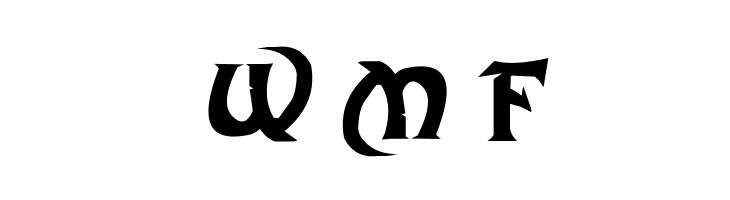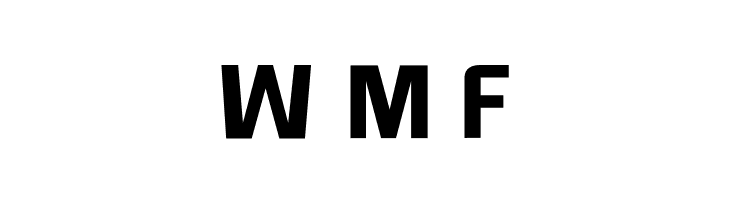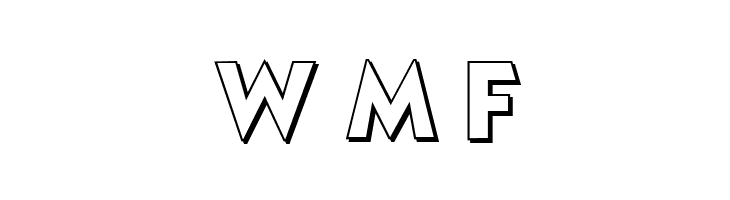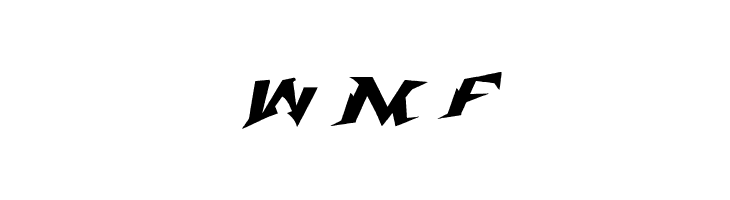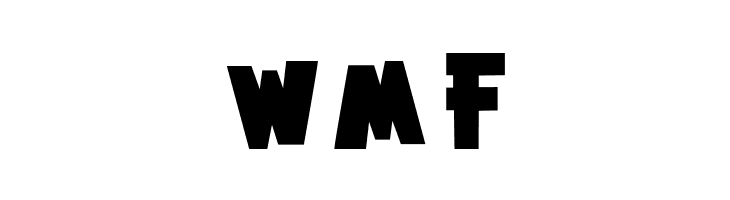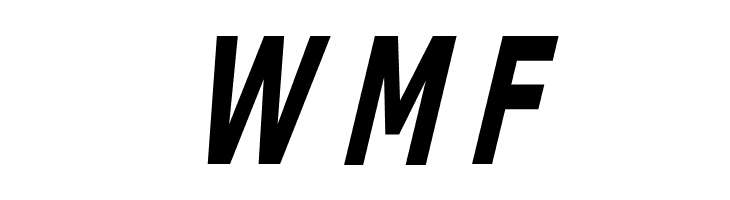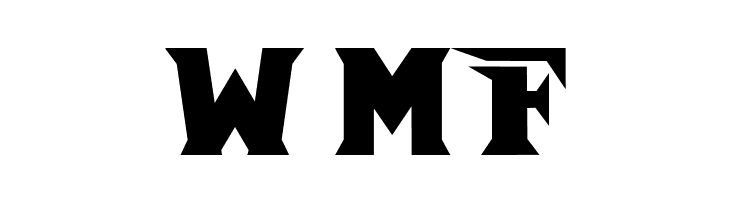
Air Millhouse Italic Font
Font by Dennis Ludlow - Sharkshock Productions
A bold, modern italic font with sharp angles and a dynamic style.
Hot Pizza Font
Font by Dennis Ludlow - Sharkshock Productions
A bold, playful font with thick strokes and whimsical curves.
Royal Acid Font
Font by Dennis Ludlow - Sharkshock
A bold, decorative font with vintage flair and modern elegance.
Royal Acidbath Font
Font by Dennis Ludlow - Sharkshock Productions
A bold, playful font with decorative serifs and unique swashes.
Dark Crystal Script Font
Font by Dennis Ludlow - Sharkshock Productions
A bold, gothic-inspired font with sharp, angular edges and intricate details.
Mobsters Font
Font by Dennis Ludlow - Sharkshock Productions
A bold, decorative font with integrated gun illustrations, perfect for dramatic designs.
Mouser Outline Font
Font by Dennis Ludlow - Sharkshock Productions
A bold, geometric outline font with clean lines and sharp angles.
Hawaiian Punk Font
Font by Dennis Ludlow - Sharkshock Productions
A bold, angular font with a playful and rebellious style.
Air Millhouse Outline Font
A bold, outlined font with a modern and dynamic style.
Viking Stencil Font
A bold, geometric stencil font with a modern, industrial look.
Dark Crystal Outline Font
Font by Dennis Ludlow - Sharkshock Productions
A bold, decorative font with an outline effect and intricate, angular details.
Royal Acidbath Outline Font
Font by Dennis Ludlow - Sharkshock Productions
A bold, playful outline font with a three-dimensional effect.
Pirate Keg Font
Font by Dennis Ludlow - Sharkshock Productions
A bold, adventurous font with sharp, angular edges, perfect for dramatic themes.
Jolly-Raunchy Font
A bold, playful font with geometric influences and unique character cuts.
Kitty Katt Font
Pirate Keg Italic Font
Font by Dennis Ludlow - Sharkshock Productions
Bold, angular, and pirate-themed with a slight italic slant.
Fruitopia Font
Font by Dennis Ludlow - Sharkshock Productions
A playful, hand-drawn font with bold, rounded characters and a whimsical style.
Electrox Font
Font by Dennis Ludlow - Sharkshock Productions